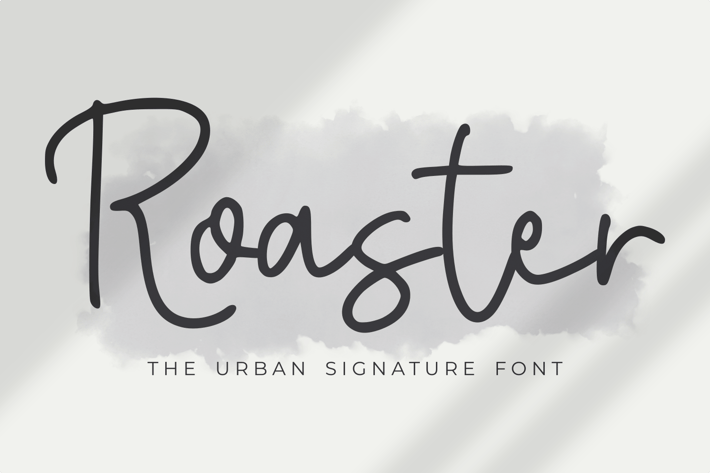
Roaster - The Urban Signature Font
Roaster - The Urban Signature Font, every single letter has been carefully crafted to make your text looks beautiful. it's perfect for logos, name cards, magazine layouts, invitations, headers, or even large-scale artwork.